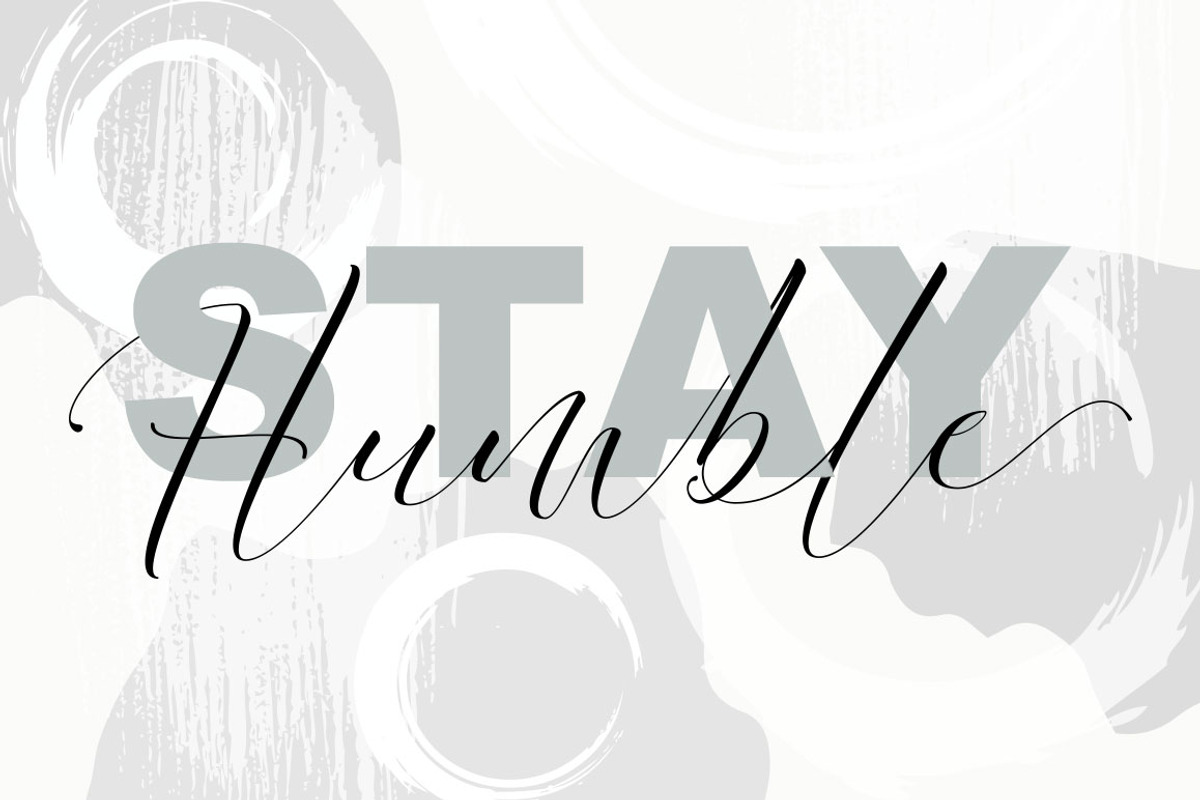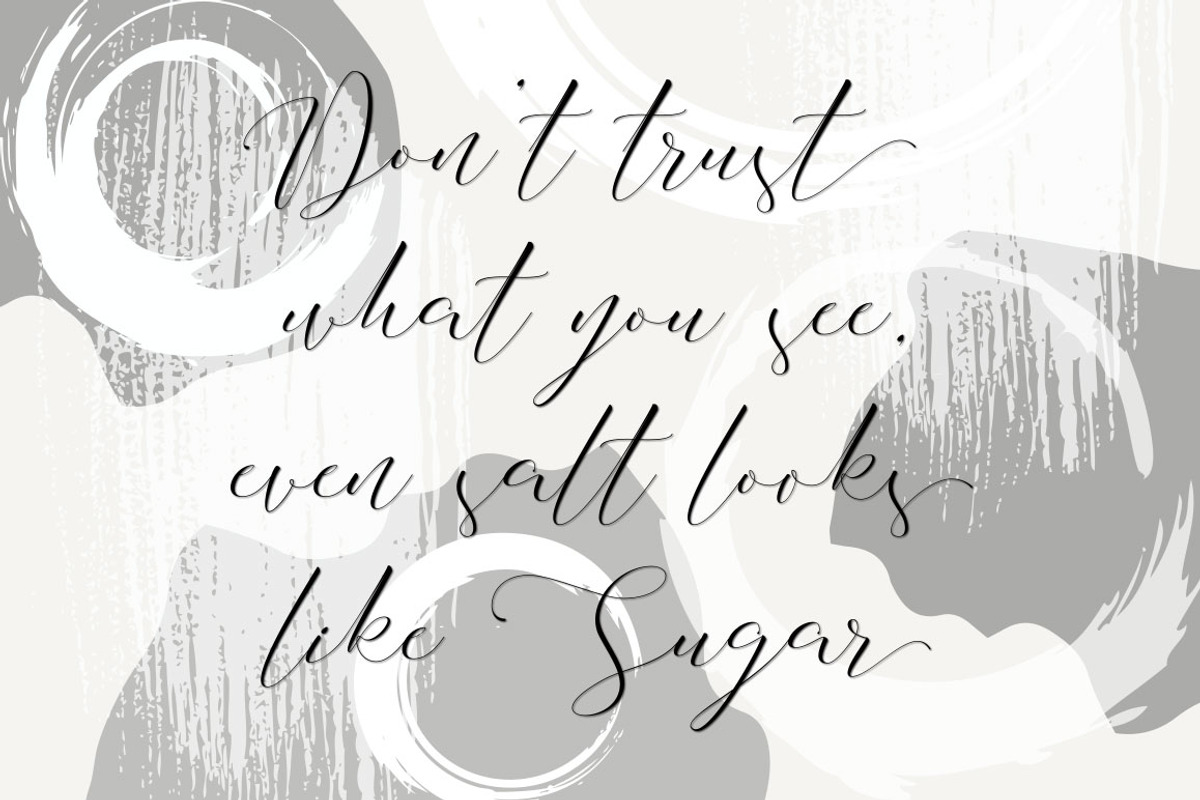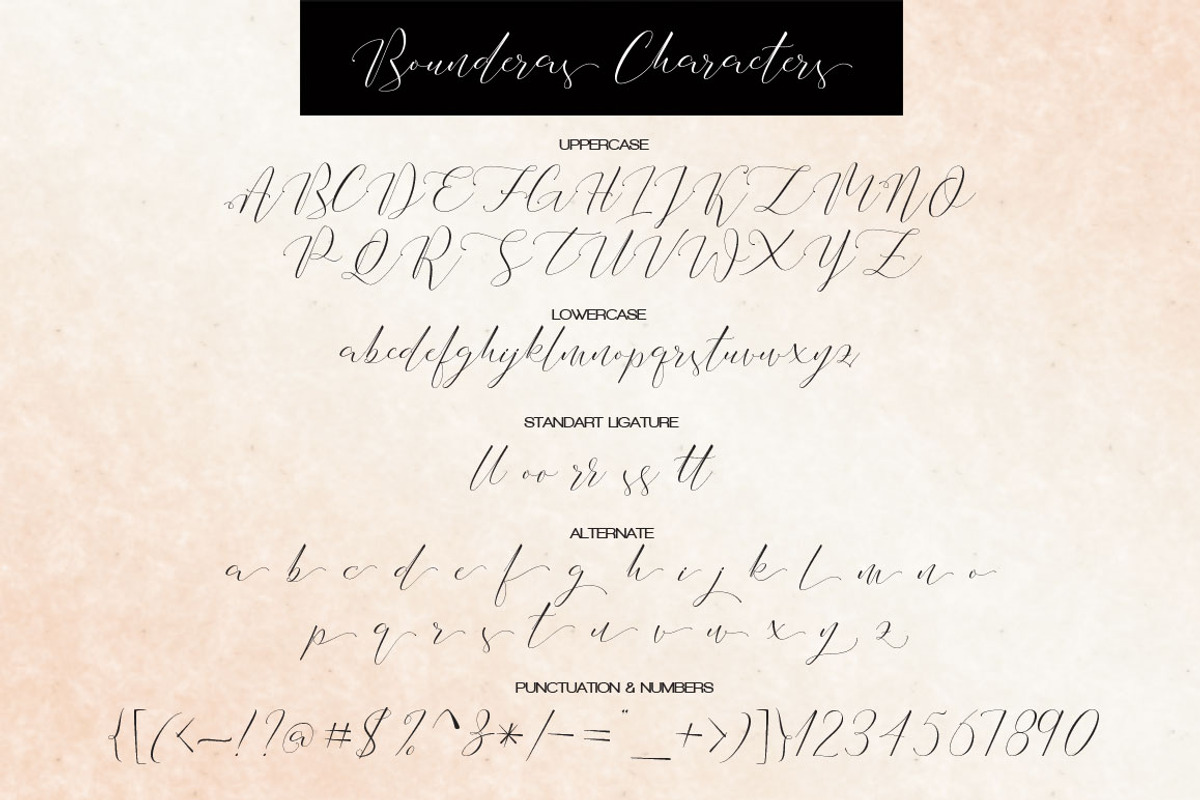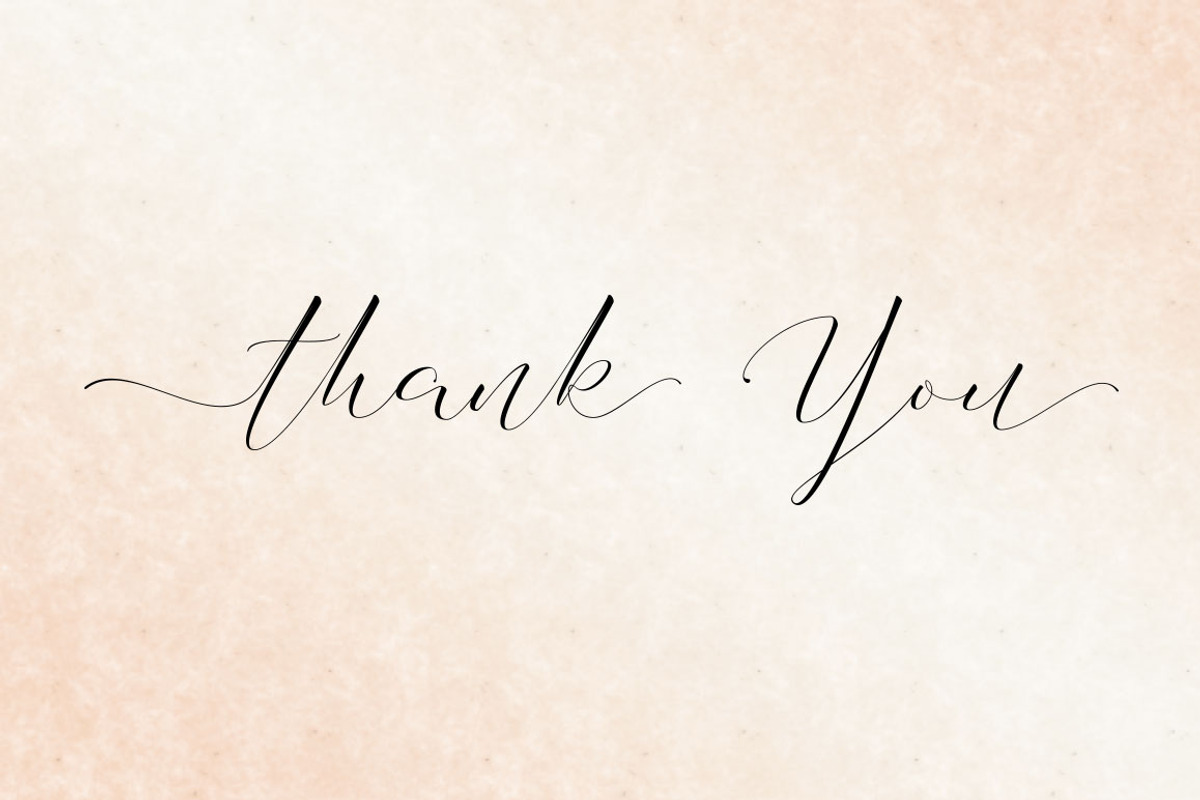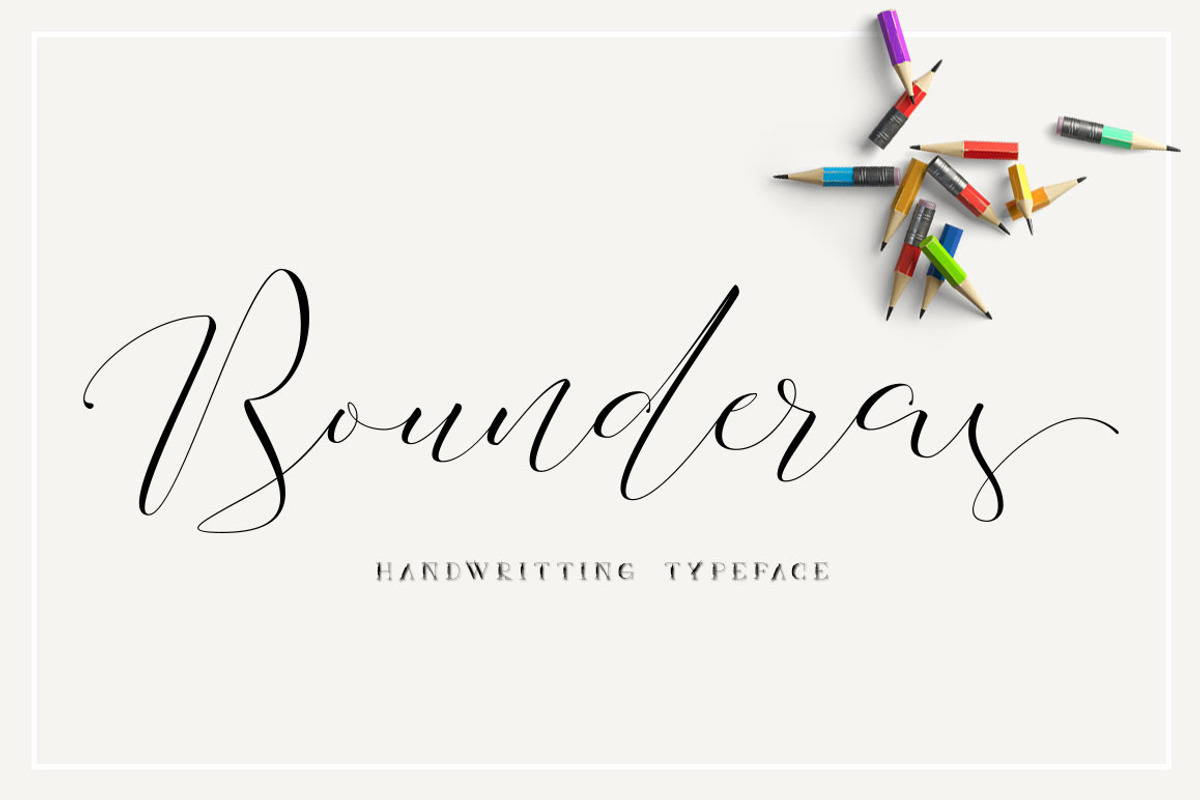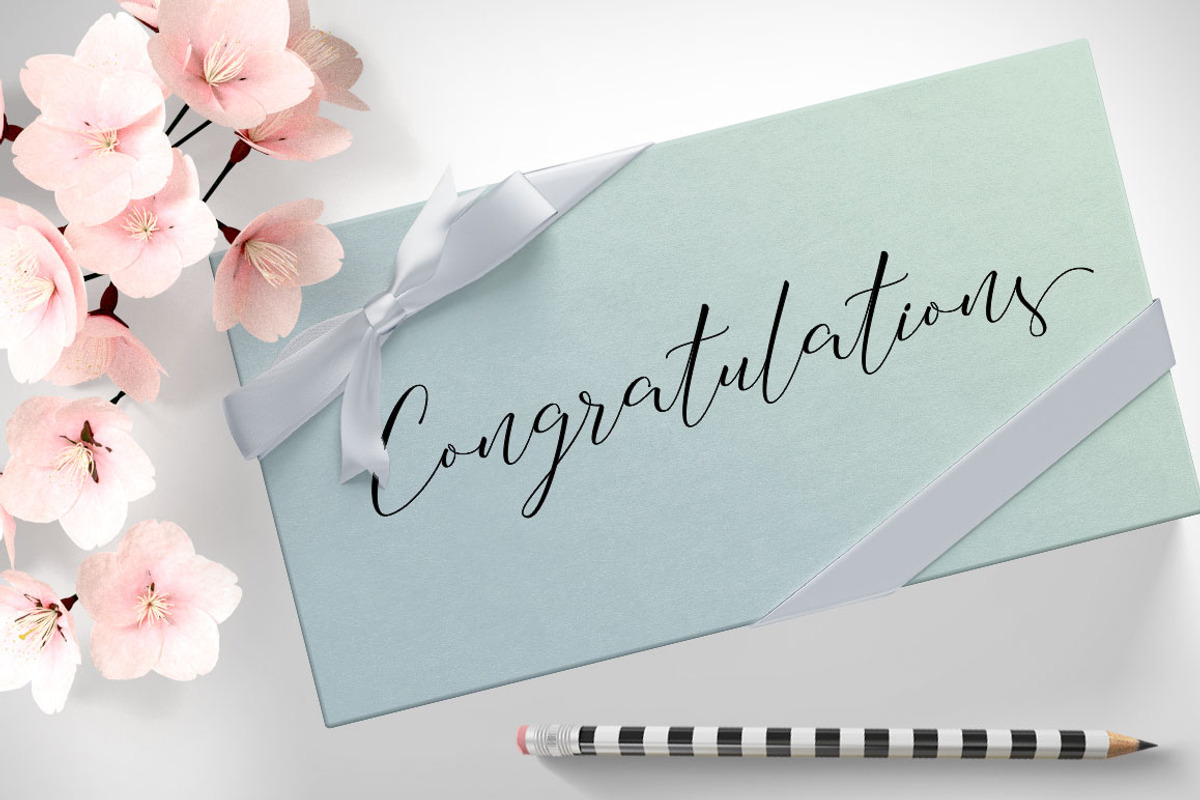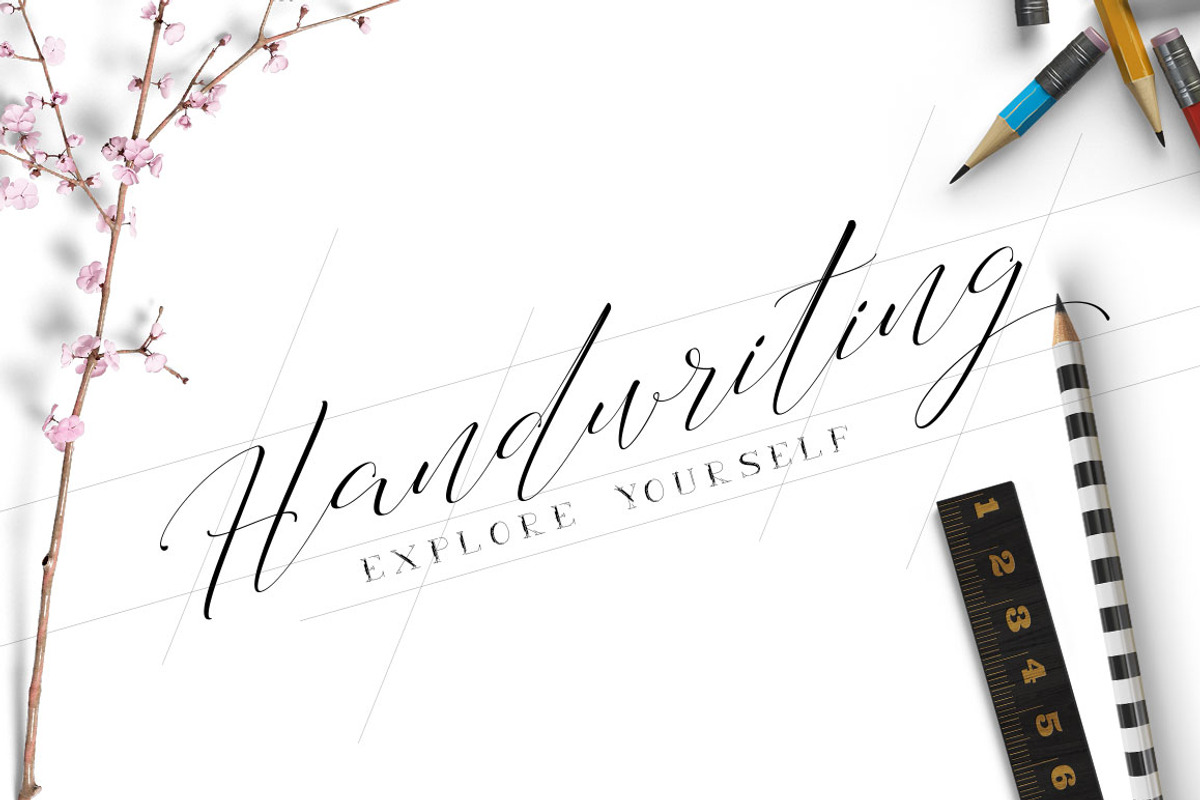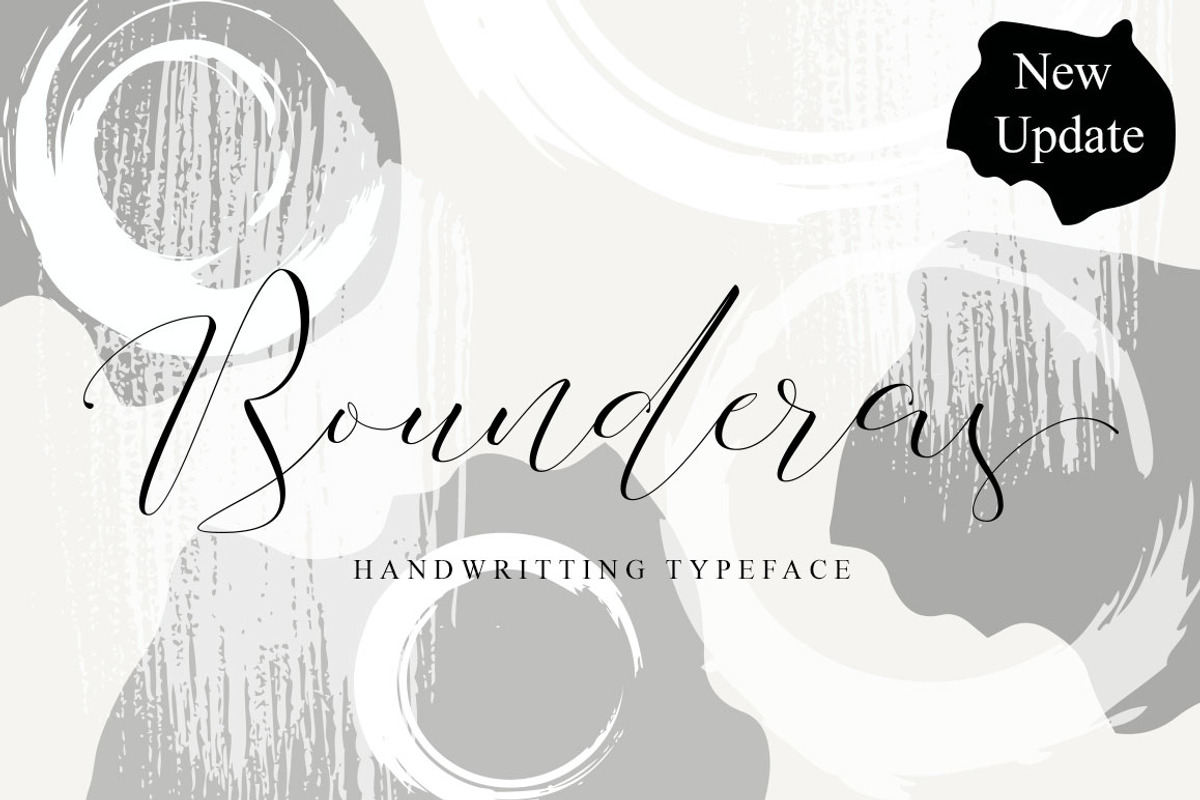
Bounderas Script
Presenting to you a Bounderas Script, a hand lettering modern calligraphy, This font was created with full of love, with smooth pulled. Bounderas Script creating the natural font for your designs beyond a standard font and include Ligatures (letters custom).
You are very welcome to use it for various purpose like wedding invitations, logos, signatures, t-shirts design, cards, printed quotes, product packagings, headings, blogs, graffiti, website headline and more. Enjoy this exclusive set and explore your fantastic design.